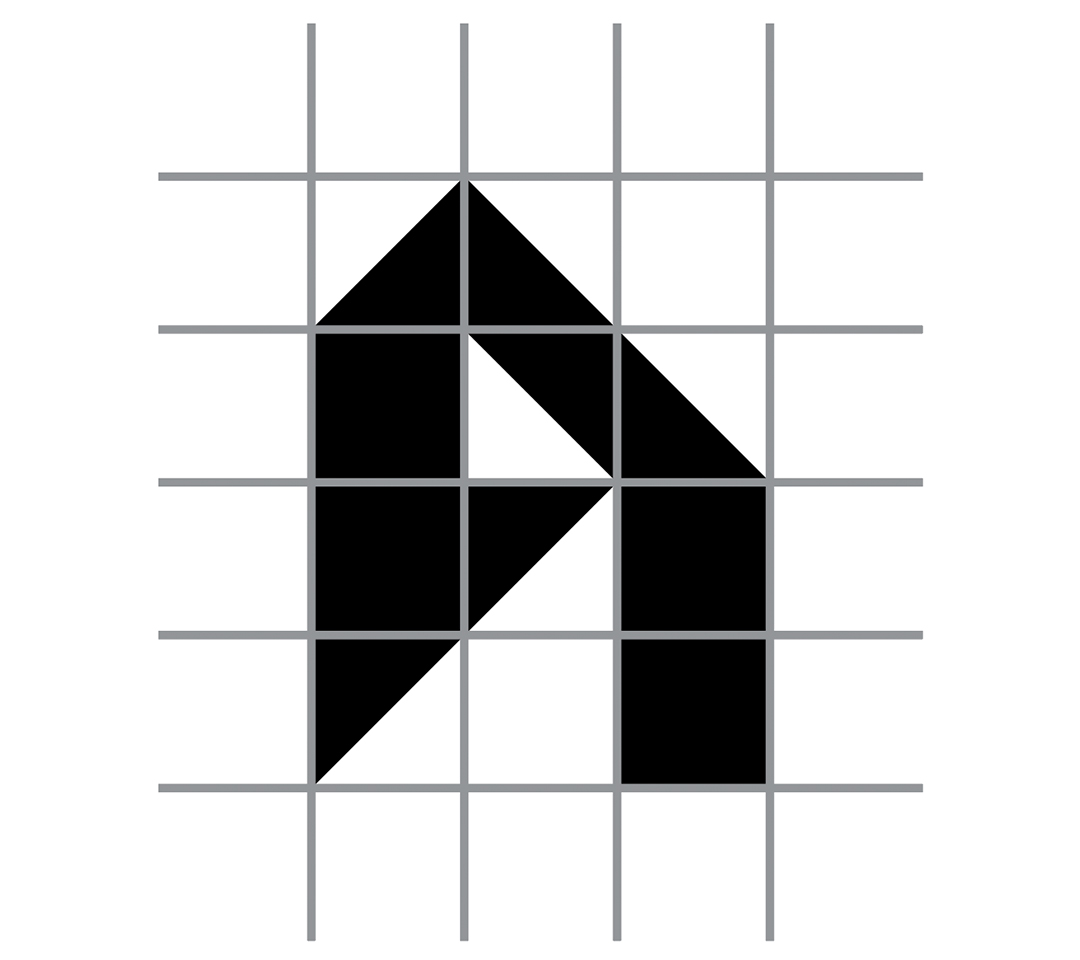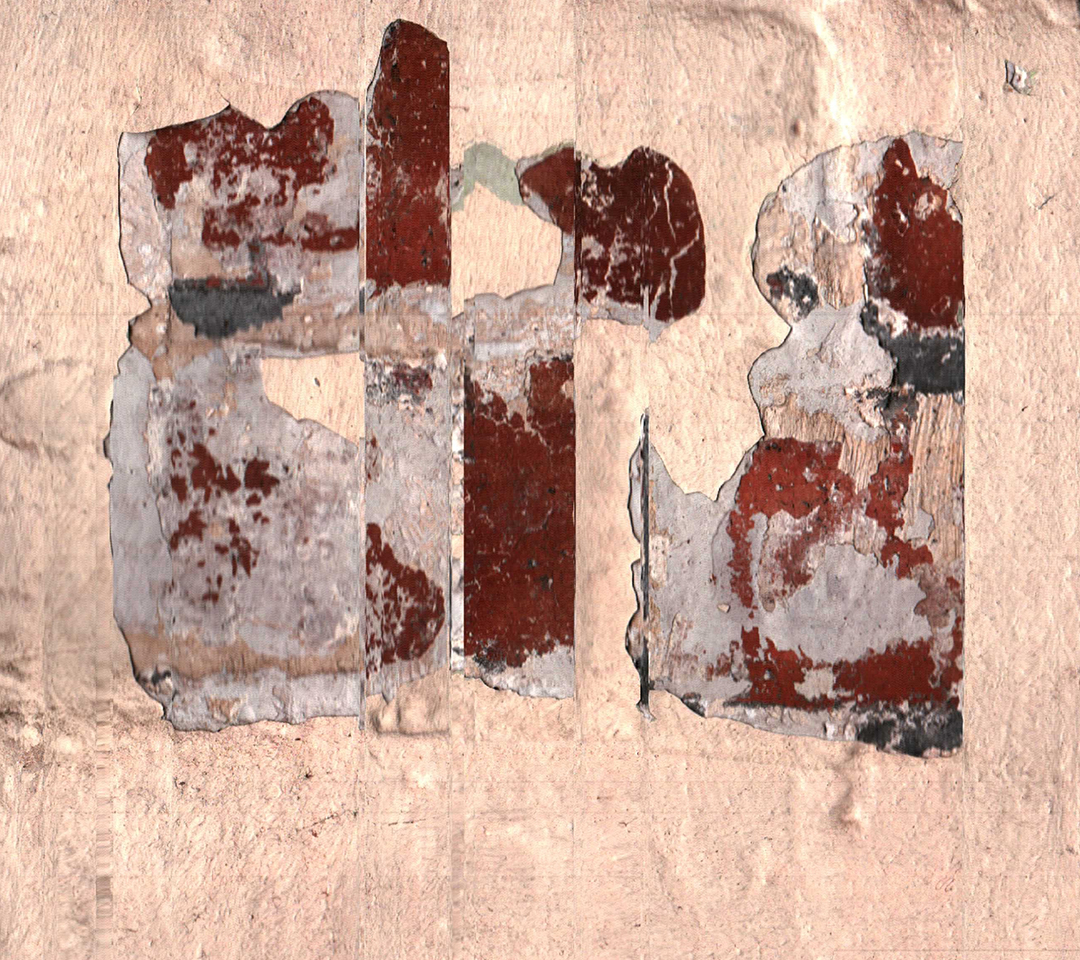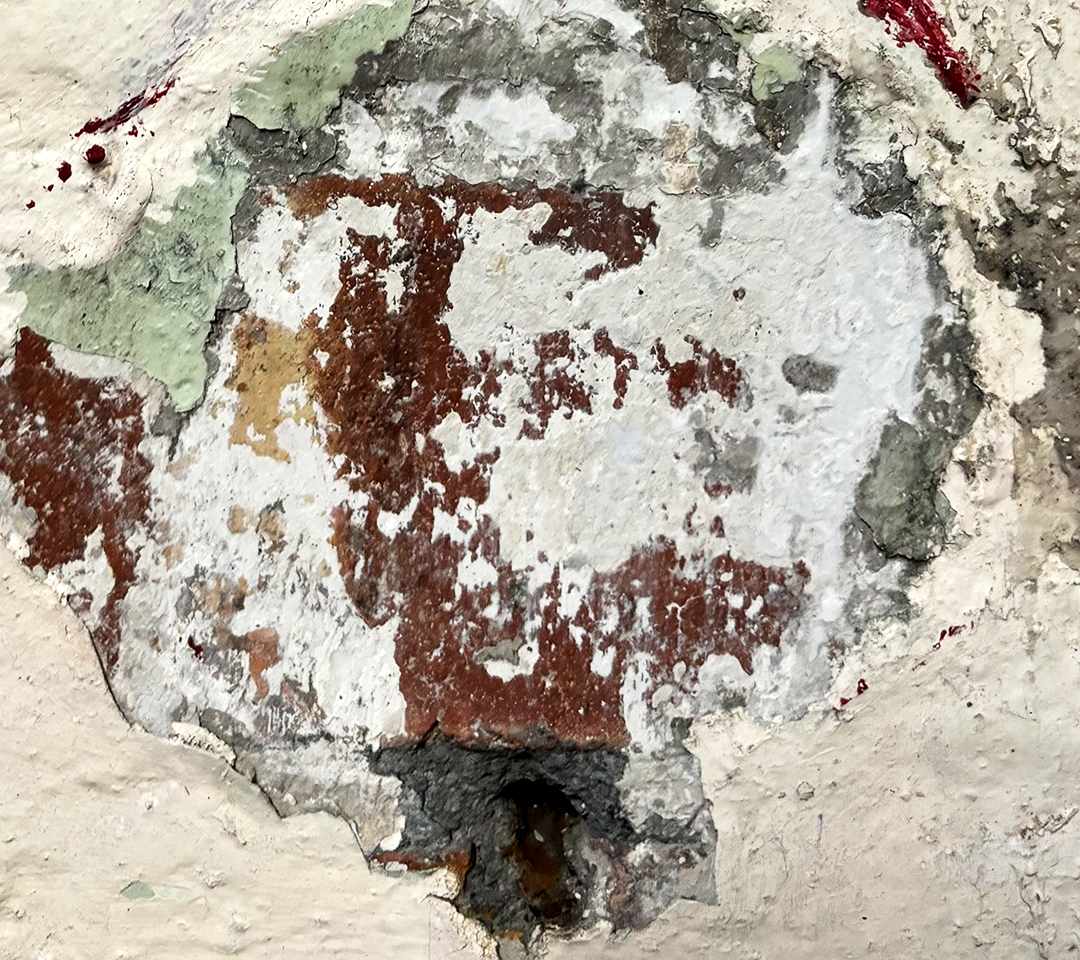
Agora 09 is a multi-characteristic font that combines formal and contextual characteristics of the Bussey Building into one distinct typeface. These components include: a window from the industrial era used as a matrix grid, textures and patterns from a variety of the building’s surfaces and my own interpretation of combining these parts due to the creative environment of the building. My font captures the raw and natural integrity of the building while encapsulating the energy and vibrancy of the people who work there. It visualises the link between location and personal style in to type.